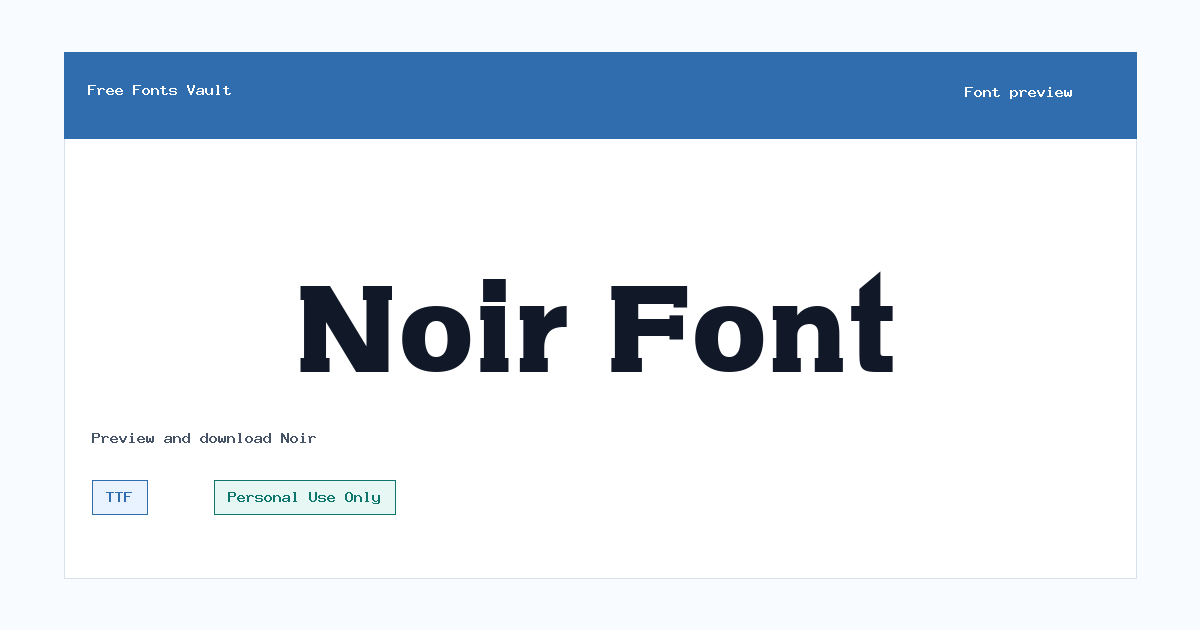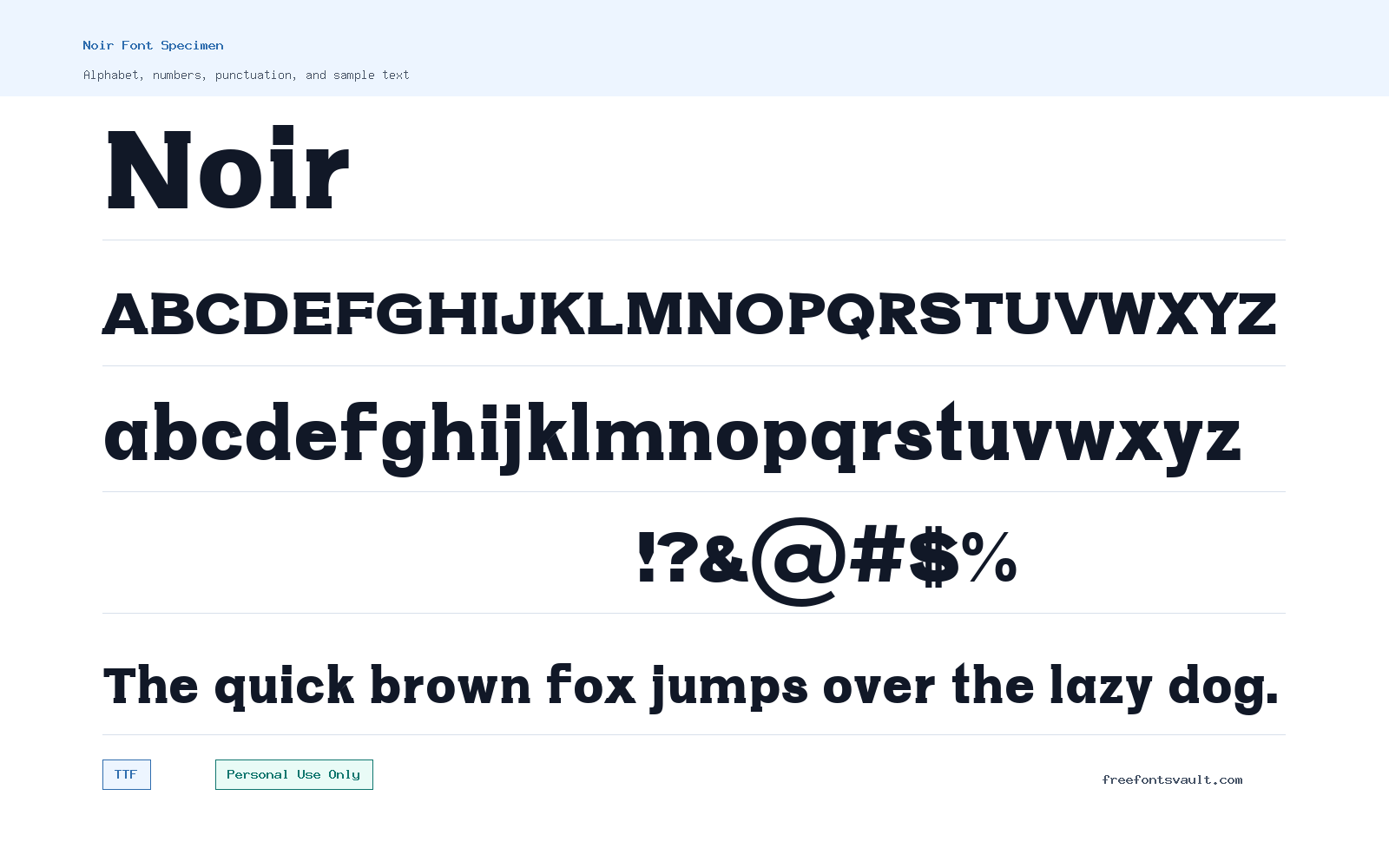
Noir
About Noir Font
Noir is presented as a slab serif font, which makes it worth trying when you want lettering with a firmer, more structured feel than a soft serif or a plain sans serif. Because the downloadable file is a regular TTF, it should be straightforward to install on most desktop systems and test in design software, word processors, or browser-based mockups. Start by previewing the exact words you plan to use, especially if your project depends on a logo-style title, a poster headline, or a short piece of display text.
For best results, use Noir where the letters have enough room to breathe. A slab serif can work well in headings, labels, covers, social graphics, packaging mockups, and short editorial titles, but it may feel heavy in long paragraphs or very small captions. Try it first at the size you actually need, then check spacing, punctuation, numbers, and all-cap words. If the design starts to feel dense, pair Noir with a clean sans serif for body text and keep Noir for the main title or accent words.
- Slab serif direction suited to short, clear display text rather than long reading passages.
- Headlines, title cards, posters, and short display text.
- Personal mockups, social graphics, labels, and experimental typography.
What is Noir best used for?
Noir is best tested for short display uses such as headings, posters, covers, labels, and social graphics. It is better to preview it carefully before using it for long text.
How should I pair Noir with other fonts?
Try pairing Noir with a neutral sans serif for body text. This keeps the headline distinctive while making longer reading sections easier to scan.